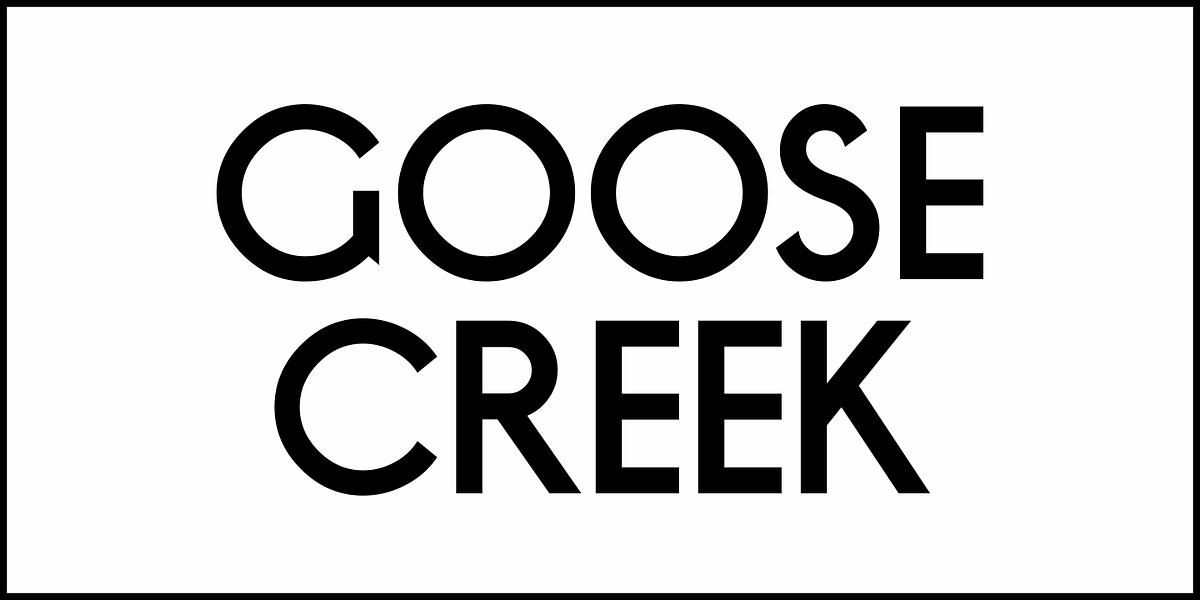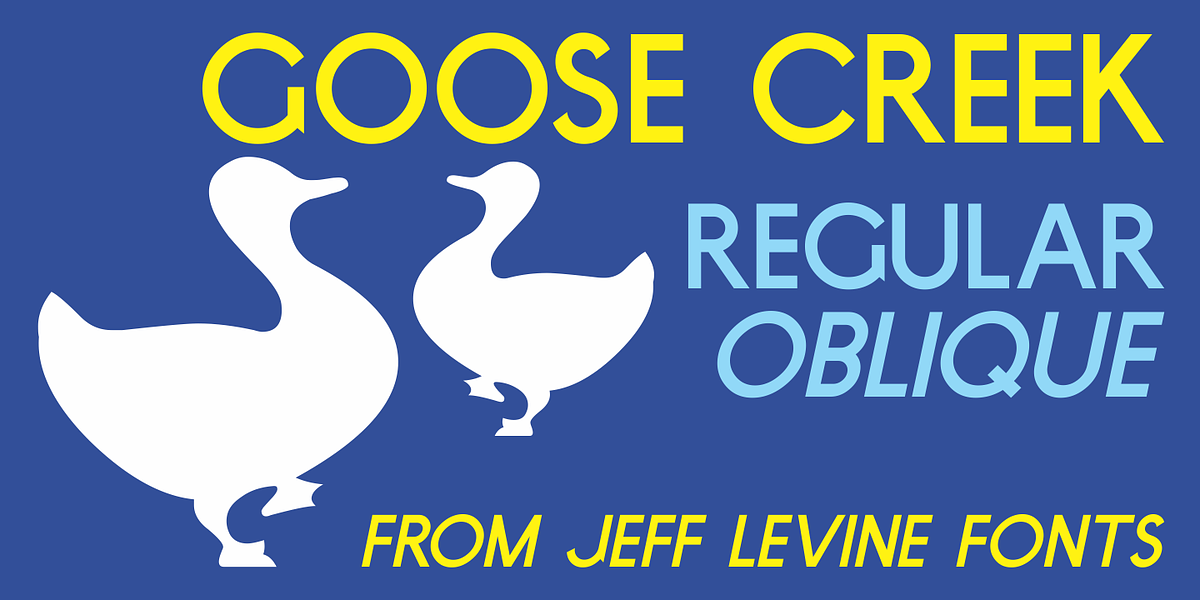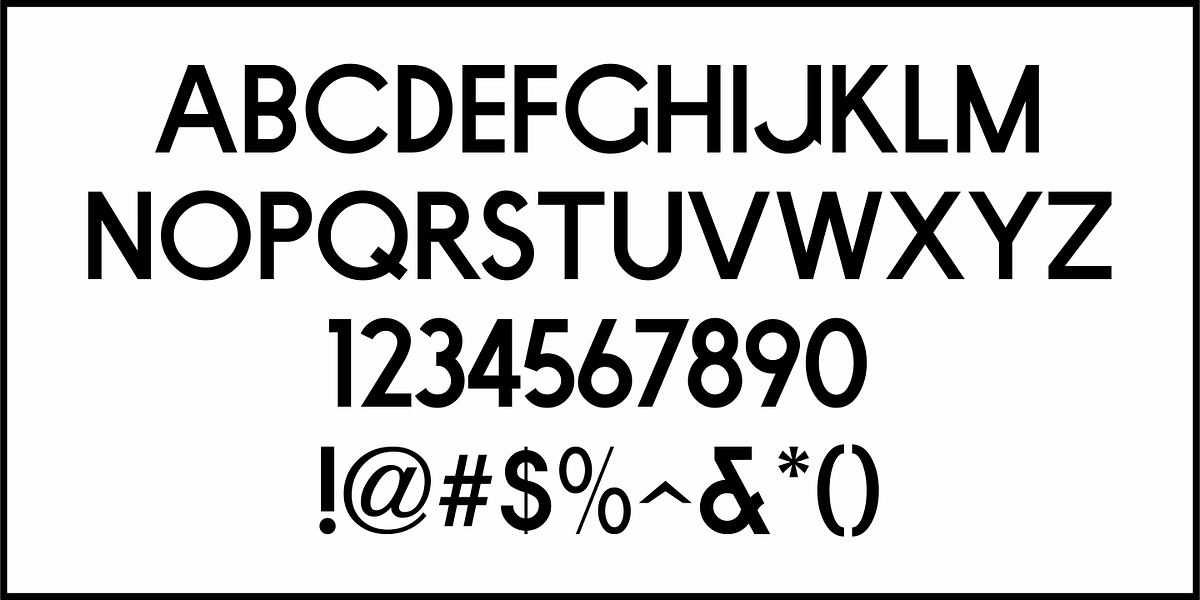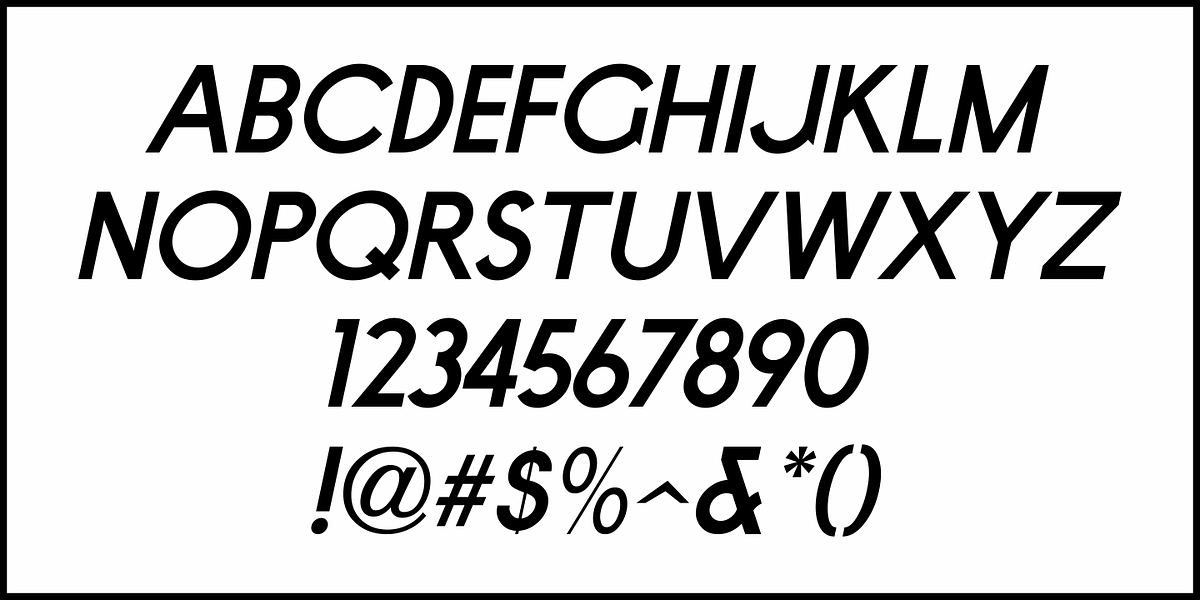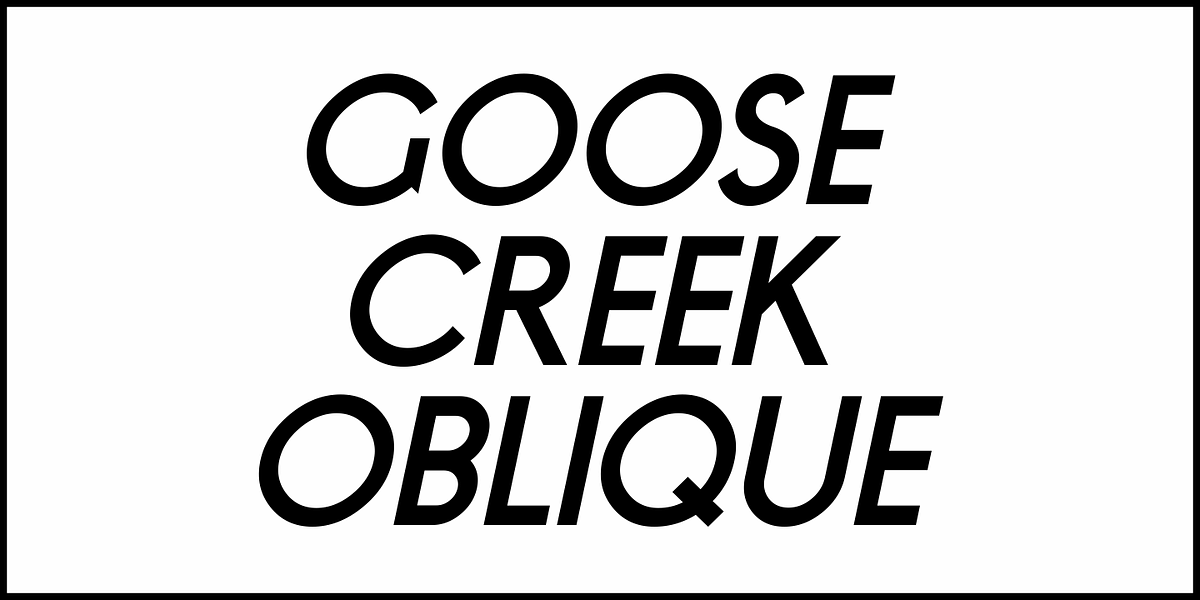
Goose Creek JNL
The hand lettered credits from the 1942 British film comedy “The Goose Steps Out” became the model for Goose Creek JNL, a simple sans serif design available in both regular and oblique versions.
As a variant on the movie’s title, the font was named for Goose Creek, South Carolina – a charming community just northeast of historic Charleston.